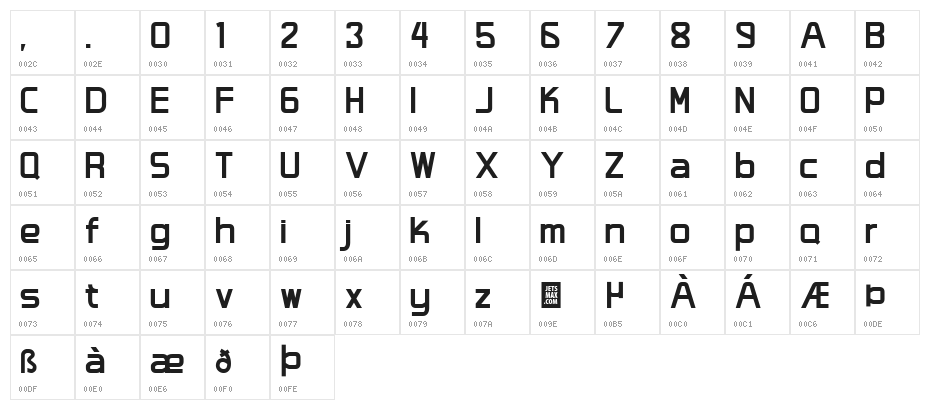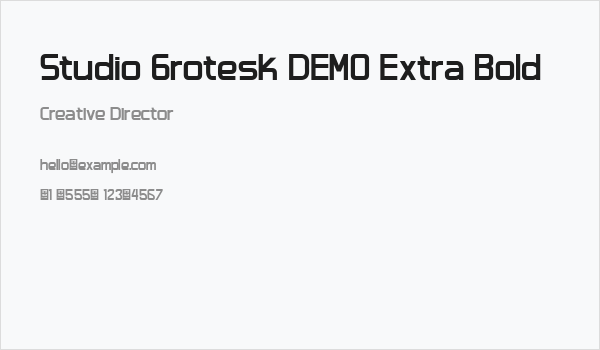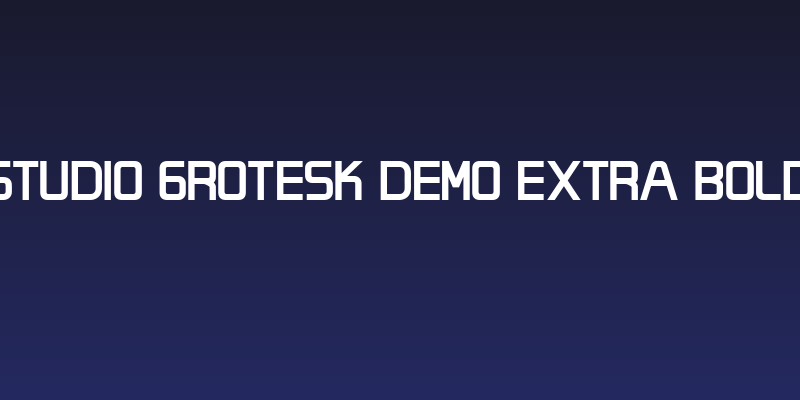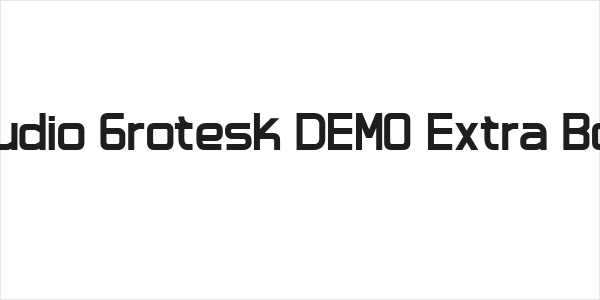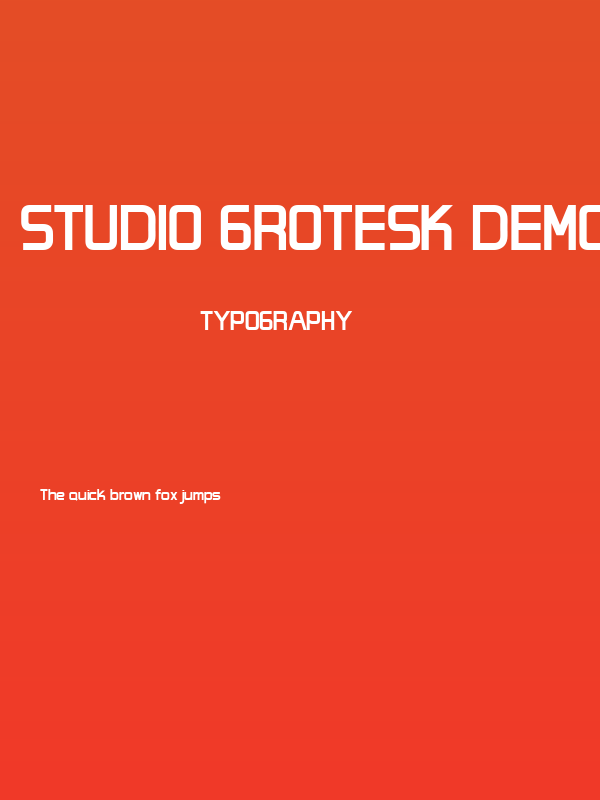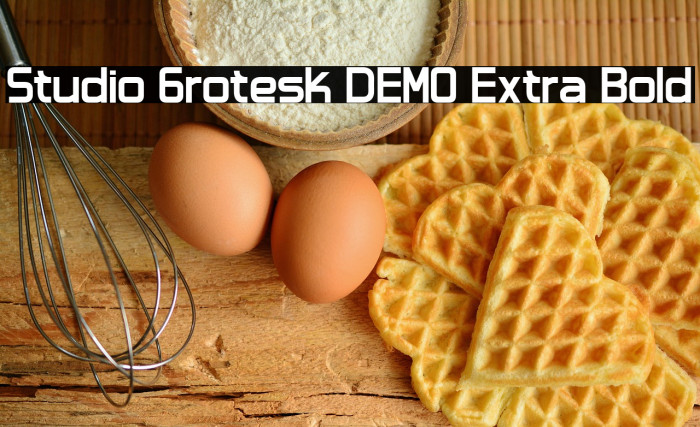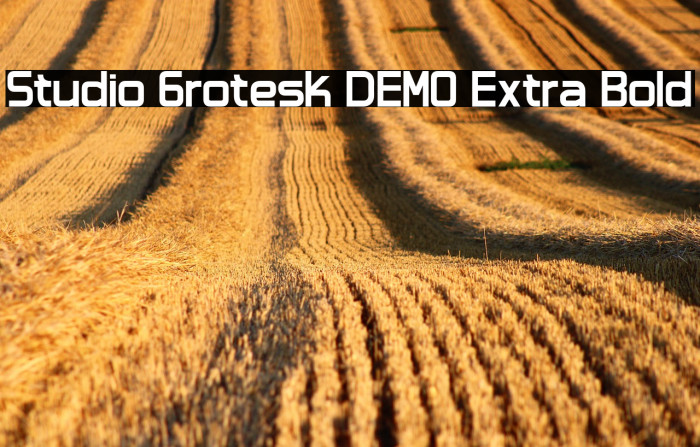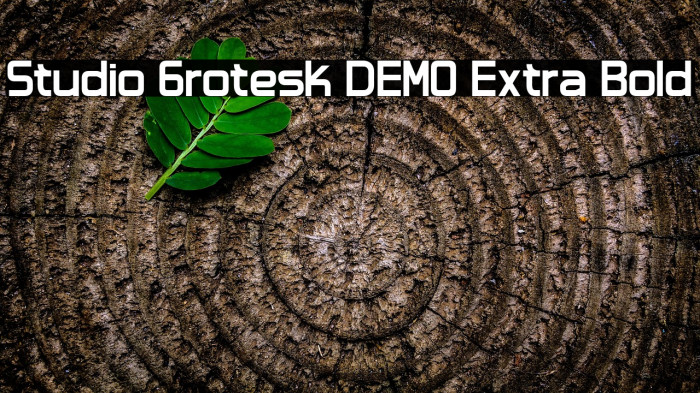
Studio Grotesk DEMO Extra Bold Font
Studio Grotesk DEMO Extra Bold Description
This typeface exhibits a bold and modern aesthetic with a geometric structure. The characters are well-defined with consistent stroke widths, giving it a clean and robust appearance. The uppercase and lowercase letters maintain a uniform height, contributing to its orderly and structured look. The numerals and special characters are designed to match the overall style, ensuring a cohesive visual experience. Its simplicity and clarity make it highly legible, even at smaller sizes, while the boldness ensures it stands out in larger formats.
| Use Case | Headlines, Logos, Digital interfaces |
| Proposed Projects | Ideal for branding, advertising, headlines, and digital interfaces where a strong visual impact is needed. |